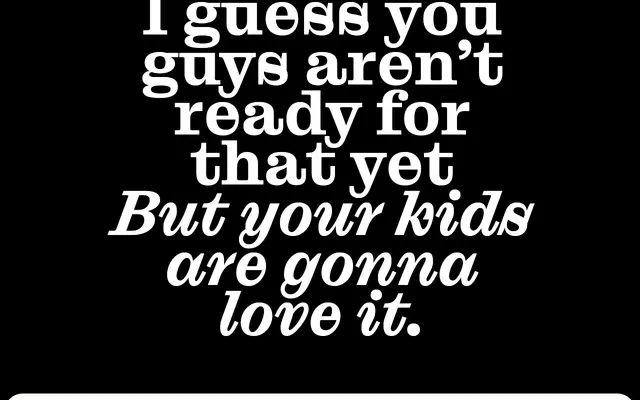
Droulers Clarendon
Bureau Brut · Yoann Minet · 2024
A Clarendon-style companion to the typewriter-inspired Droulers, conceived as a fictional 19th-century ancestor of that family.
Designed by Yoann Minet and published by Bureau Brut in 2024, Droulers Clarendon imagines the typographic source that might have existed before Droulers, framed as an uchronian hypothesis: what Droulers would have derived from had it been used on a Remington No.2 in 1878. It follows Clarendon and Ionic conventions with bracketed rectangular serifs and increased stroke contrast, while retaining the closed counterpunches and merged serifs that define its companion. The 16-style family runs across eight weights from Line to Black with matching italics, and proportional spacing makes it better suited to sustained text than the original Droulers.
The foundry explicitly positions this within the Clarendon/Ionic slab serif tradition, characterised by bracketed rectangular serifs and stronger stroke contrast than a typical egyptian. Bureau Brut categorises slab serifs as Clarendons/Ionics, which maps directly to this subcategory.